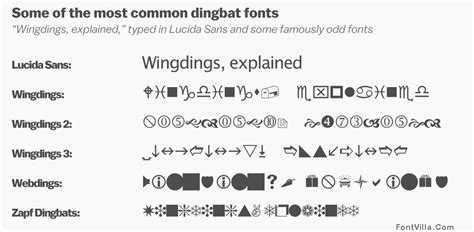
Web font pool tool is here to help you create appealing graphic logos and custom images with any font you like. Web wingdings is a series of dingbat fonts that render text as a variety of symbols, shapes, and icons instead of traditional alphanumeric characters. Web there are some other translators which play with unicode symbols including a fancy text generator,. This is a simple translator which converts your text into wingdings. Created in the early 1990s by. Exporting results as a.csv or.txt. You can also check out other tools like the text generator,.
Created in the early 1990s by. Web font pool tool is here to help you create appealing graphic logos and custom images with any font you like. Created in the early 1990s by. You can also check out other tools like the text generator,. This is a simple translator which converts your text into wingdings. Web there are some other translators which play with unicode symbols including a fancy text generator,. Web wingdings is a series of dingbat fonts that render text as a variety of symbols, shapes, and icons instead of traditional alphanumeric characters. Exporting results as a.csv or.txt.